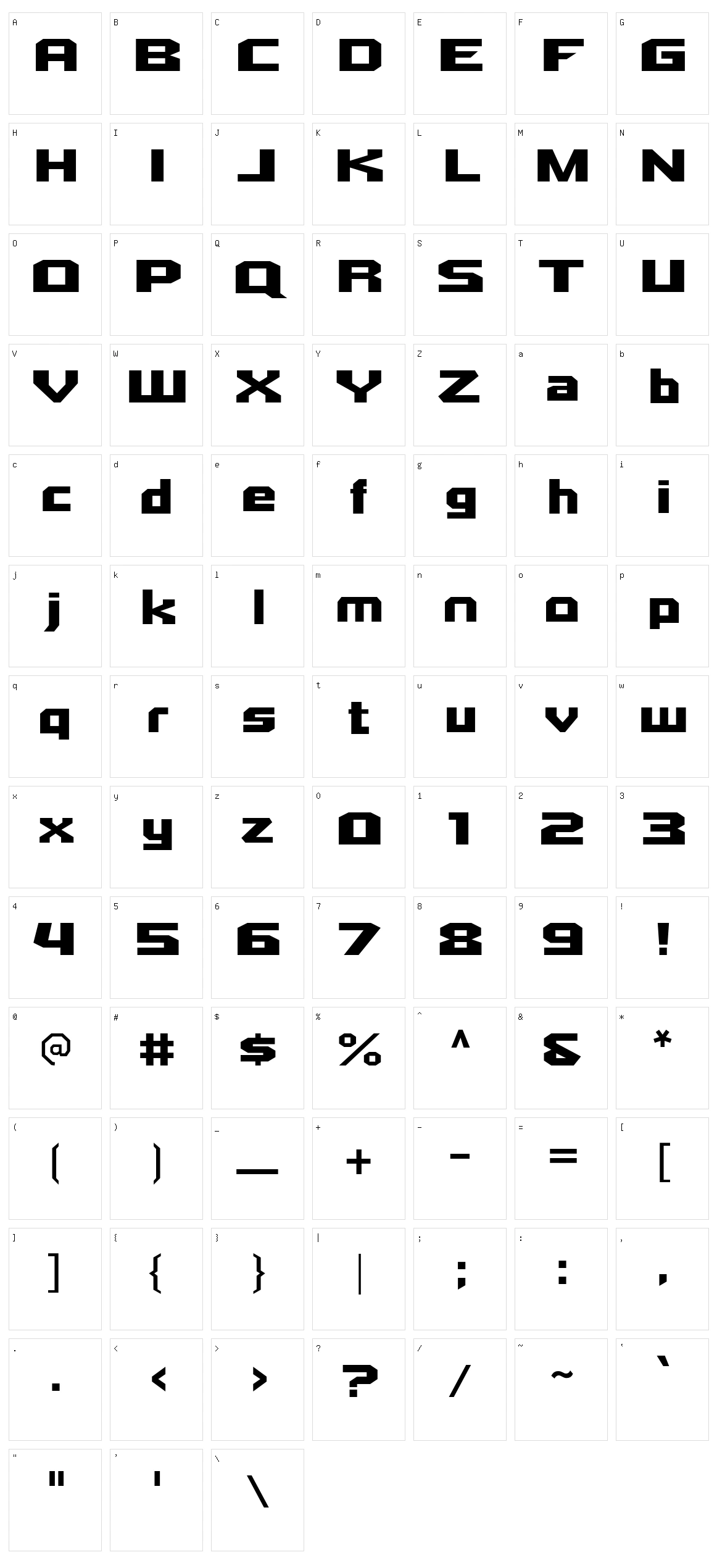
The free font Quadrangle is carefully designed by Typodermic Fonts, showcasing a thoughtful balance of creativity and usability and falls under the Square font style. When you download the ZIP file, it contains only 68.87 KB of font files, making it lightweight and quick to download. Please review the license details below to understand permitted usage and distribution rights. If license information is not available, we recommend using this font for personal projects only or contacting the author directly for commercial usage permissions.